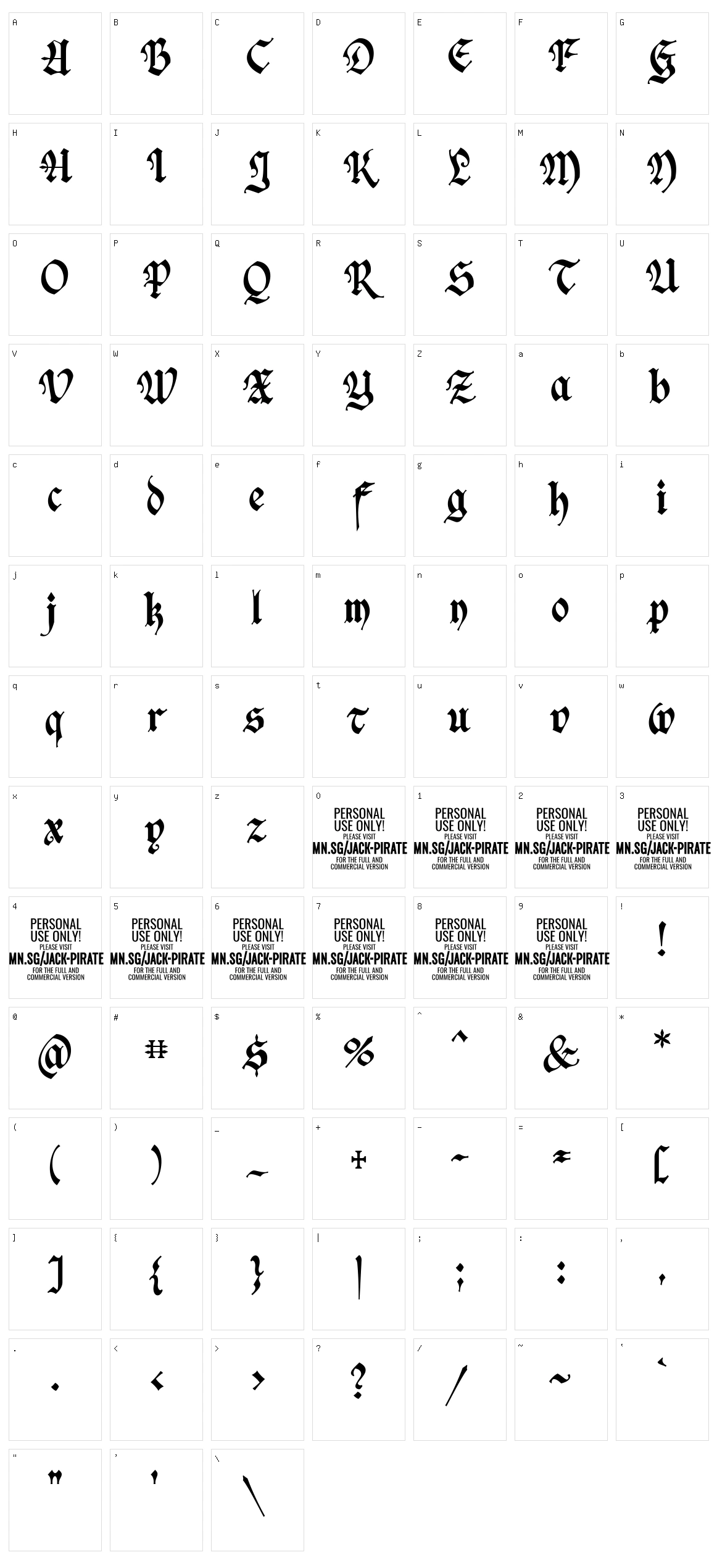
Jack Pirate
Designed by: Mans Greback
Category: Medieval & Gothic
Jack Pirate is a hand-drawn blackletter typeface, created by Måns Grebäck during 2019.
It is a genuine medieval font with fraktur-inspired letter forms, Gothic decoratives
and a mysterious undertone.
Use it for projects relating to the Middle Ages, or in modern contexts such as tattoo or
storefront graphics.
It contains an alternate alphabet, to be used as a stand-alone font or to give decoration
and variation to the regular style.
The font is multilingual and has an extensive range of glyphs; it supports all Latin-based
European languages, contains numbers as well as all symbols and characters you'll ever need.